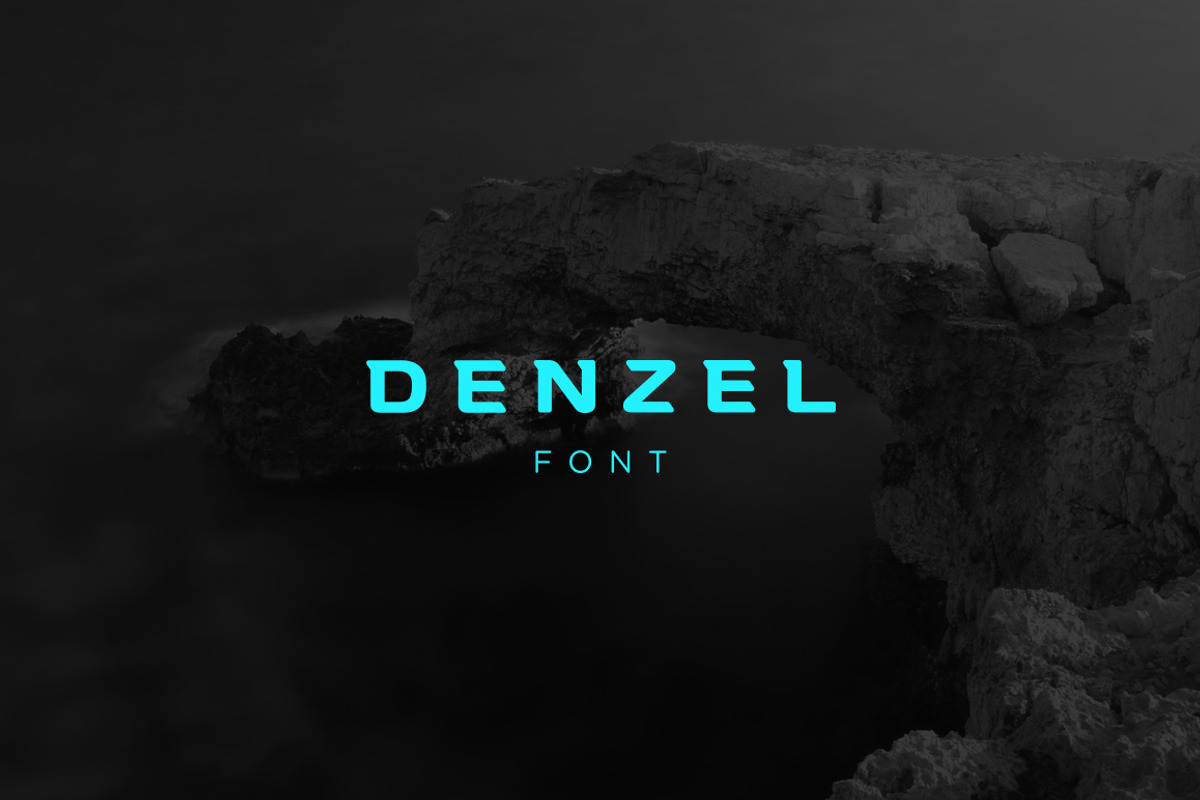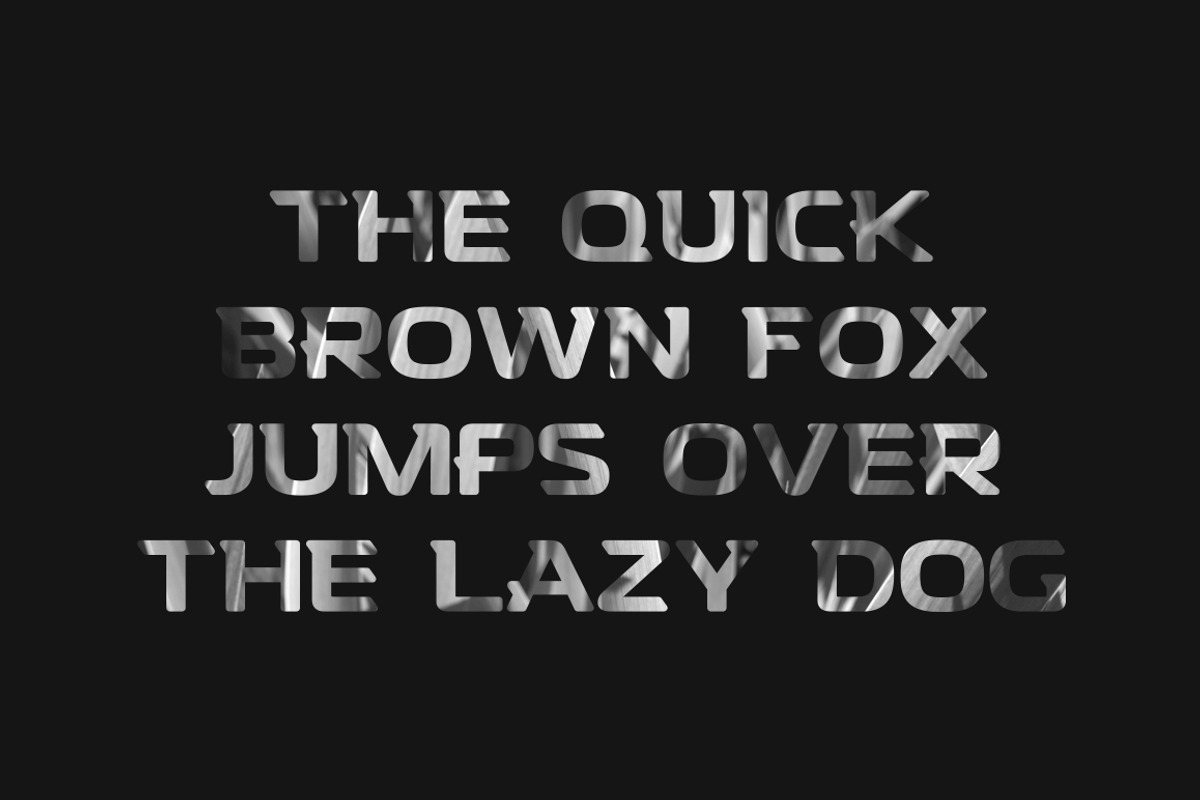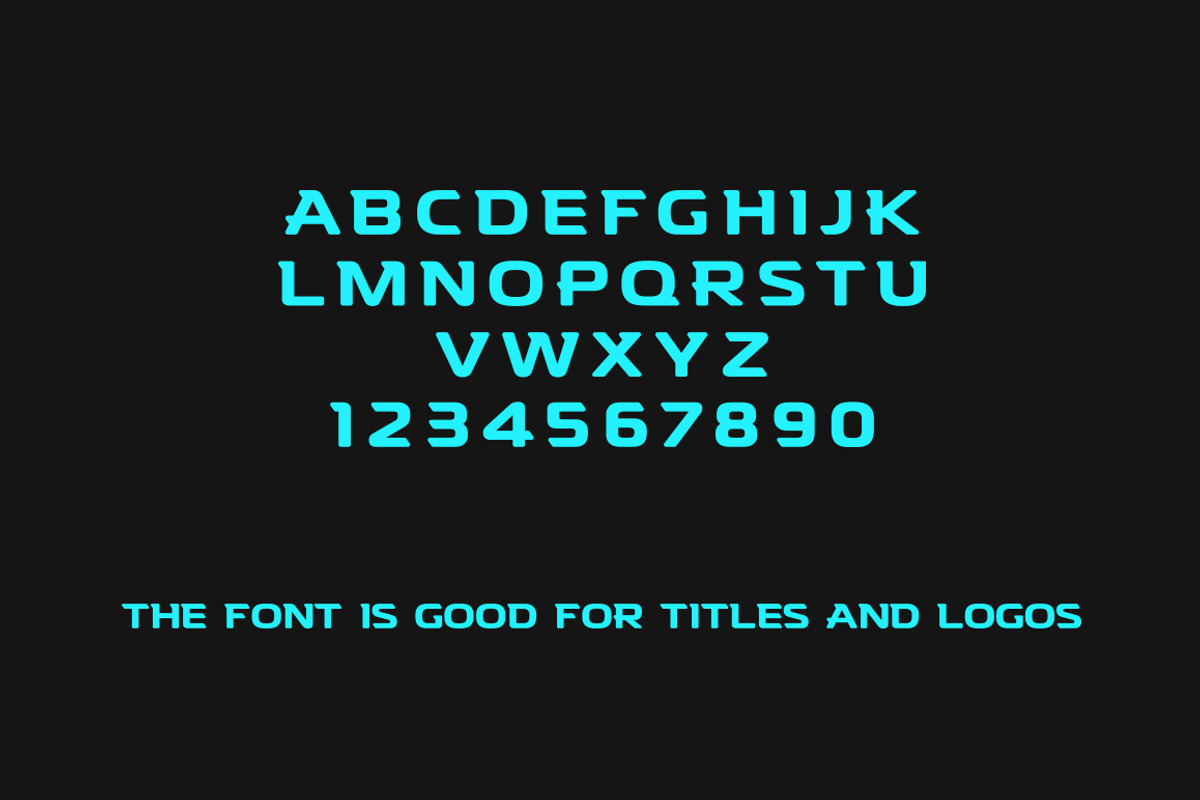
Denzel Font
Denzel Font by Urazovsky Design is a font selected for branding, posters, packaging, typography.
Why Denzel Font is worth a look
Denzel Font by Urazovsky Design fits naturally into Branding, posters, packaging, typography.